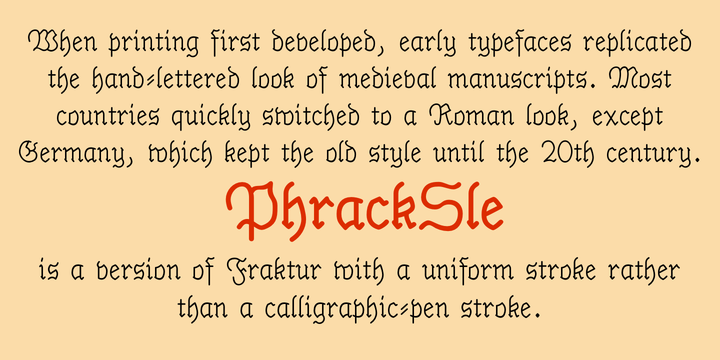
Phracksle
Design Credits
Designed by: Robert Schenk
Designed when: 1992
Contained in Category: Blackletter
Design owned by: Ingrimayne Type
PhrackSle
PhrackSle is a version of Fraktur with a uniform stroke rather than a calligraphic-pen stroke.